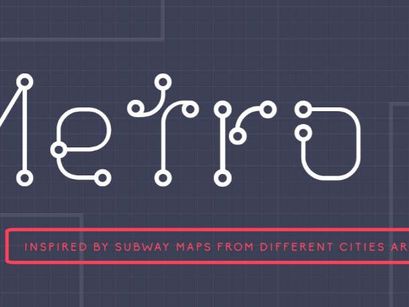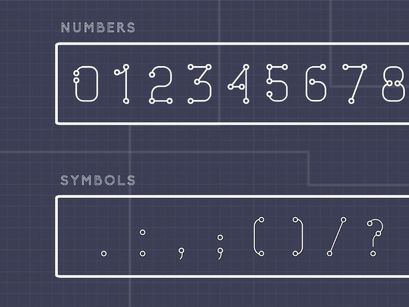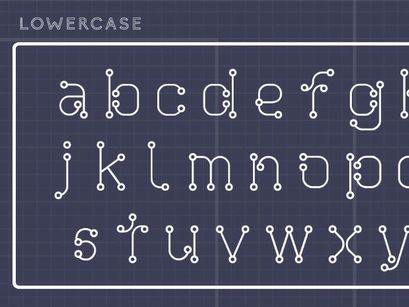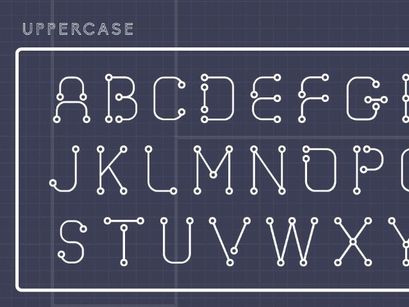
METRO 2.0 - FREE FONT
Metro 2.0-Regular
Metro 2.0 is a new font created by Filipa Amado. Drawing inspiration from subway maps makes this playful display font really stand out! Great for futuristic, gaming & tech related projects.